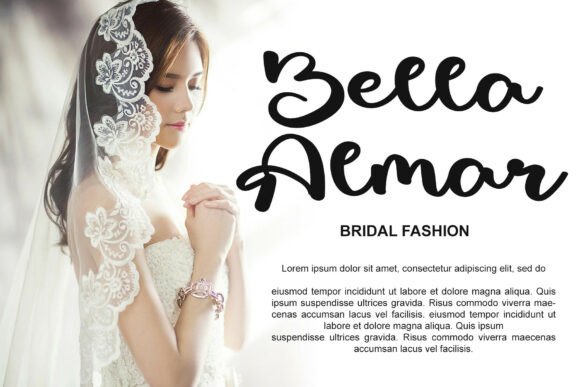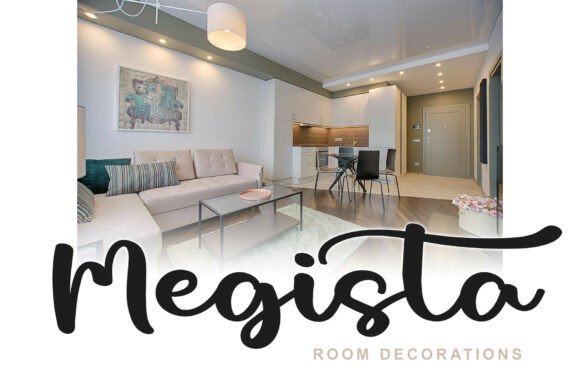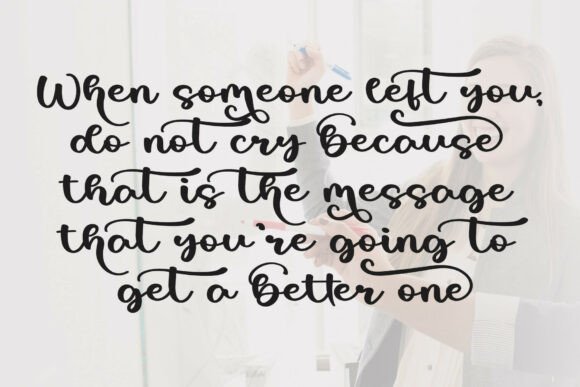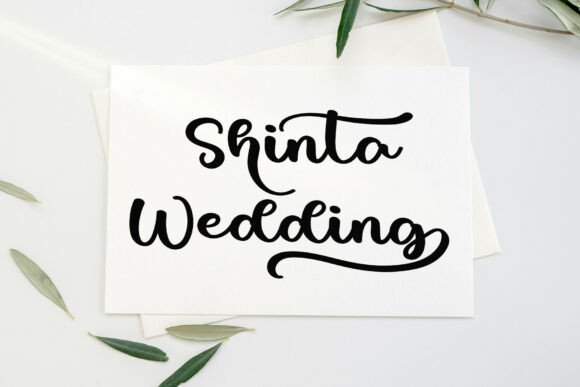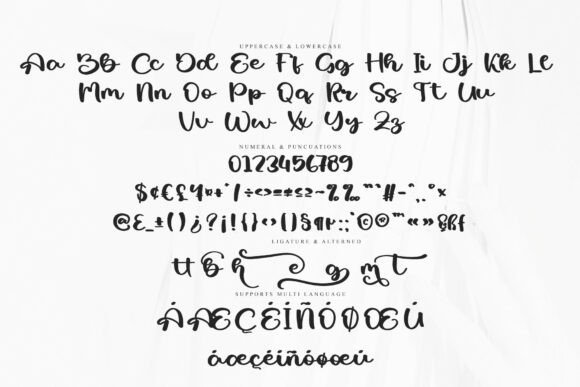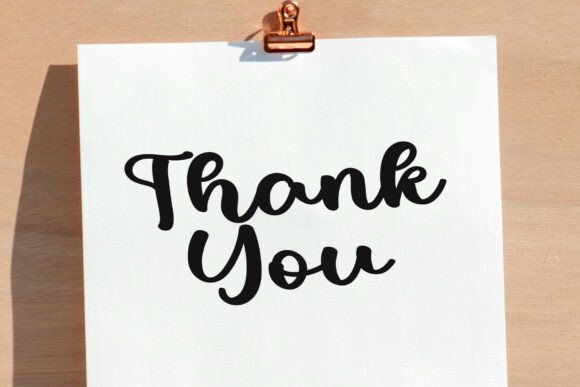
Bride Writing Font: The Perfect Choice for Elegant and Festive Designs
Are you looking for a font that exudes charm and festive elegance? Look no further than Bride Writing Font. This bold, rhythmic script handwriting font is part of a modern collection that is sure to make your designs stand out. With its thick, confident strokes and bouncy baseline, Bride Writing Font creates a sense of joyful movement that is perfect for wedding invitations, bridal shower branding, romantic greeting cards, and boutique lifestyle logos.
The Defining Characteristics of Bride Writing Font
The defining characteristic of Bride Writing Font is the use of dramatic, looping swashes that crown the letterforms. These swashes add a touch of elegance and sophistication to any design, making it perfect for formal events like weddings. The fluid connections and soft, rounded terminals give the text a warm, hand-lettered personality that is sure to capture the attention of your audience.
Why Choose Bride Writing Font?
Bride Writing Font is an exceptional choice for designers and crafters who want to create elegant and festive designs. Here are just a few reasons why:
- Unique and eye-catching: The dramatic, looping swashes and fluid connections make Bride Writing Font a unique and eye-catching choice for any design.
- Versatile: This font is perfect for a variety of design projects, including wedding invitations, bridal shower branding, romantic greeting cards, and boutique lifestyle logos.
- Elegant and sophisticated: The thick, confident strokes and bouncy baseline give Bride Writing Font an elegant and sophisticated feel that is perfect for formal events.
- Hand-lettered personality: The soft, rounded terminals and fluid connections give the text a warm, hand-lettered personality that is sure to capture the attention of your audience.
How to Use Bride Writing Font in Your Designs
Bride Writing Font is easy to use and can be incorporated into a variety of design projects. Here are a few ideas to get you started:
- Wedding invitations: Use Bride Writing Font to create beautiful and elegant wedding invitations that set the tone for the big day.
- Bridal shower branding: Create a cohesive look for the bridal shower by using Bride Writing Font for all of the branding materials, including invitations, decorations, and favors.
- Romantic greeting cards: Use Bride Writing Font to create romantic and elegant greeting cards for special occasions like anniversaries and Valentine’s Day.
- Boutique lifestyle logos: Use Bride Writing Font to create a unique and eye-catching logo for your boutique lifestyle brand.
Tips and Tricks for Working with Bride Writing Font
Here are a few tips and tricks to keep in mind when working with Bride Writing Font:
- Use it sparingly: Because Bride Writing Font is so elegant and sophisticated, it’s best to use it sparingly. Use it for headings or titles, and a simpler font for the body text.
- Experiment with swashes: The dramatic, looping swashes are a defining characteristic of Bride Writing Font. Experiment with different swash styles to find the one that works best for your design.
- Pair it with a simple font: Pair Bride Writing Font with a simple font to create a cohesive look. A sans-serif font like Arial or Helvetica works well.
Bride Writing Font is a beautiful and elegant font that is perfect for designers and crafters who want to create festive and sophisticated designs. With its dramatic, looping swashes and fluid connections, this font is sure to capture the attention of your audience. Whether you’re creating wedding invitations, bridal shower branding, romantic greeting cards, or boutique lifestyle logos, Bride Writing Font is an exceptional choice.